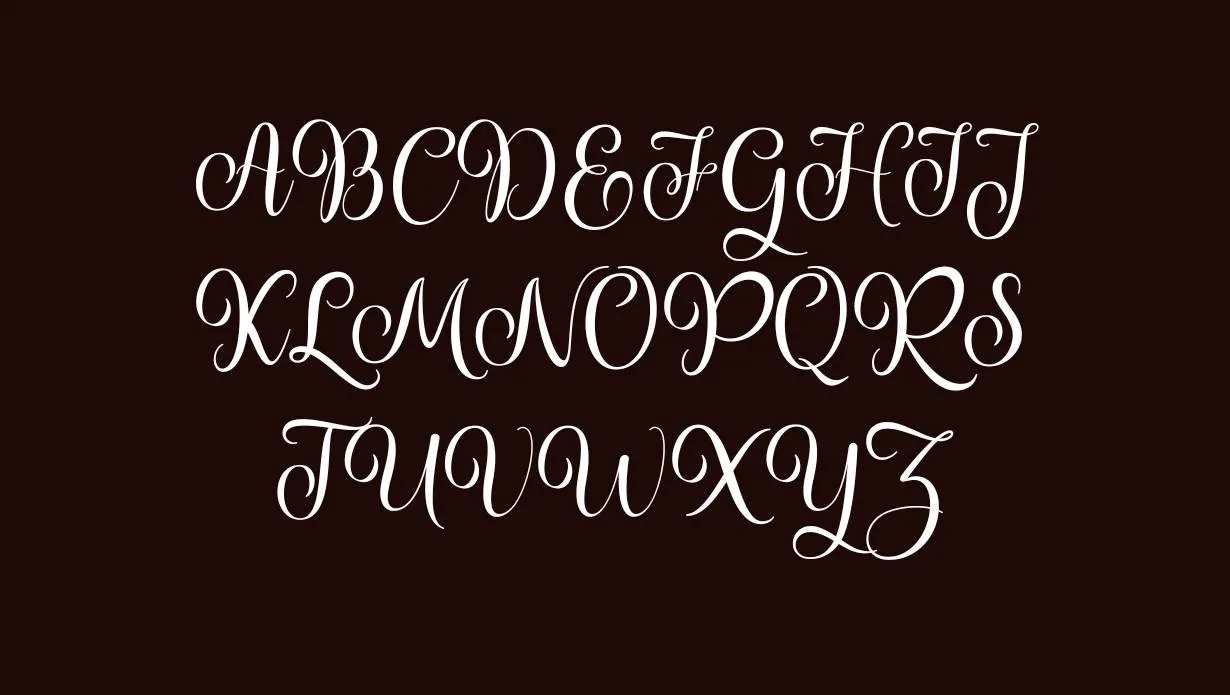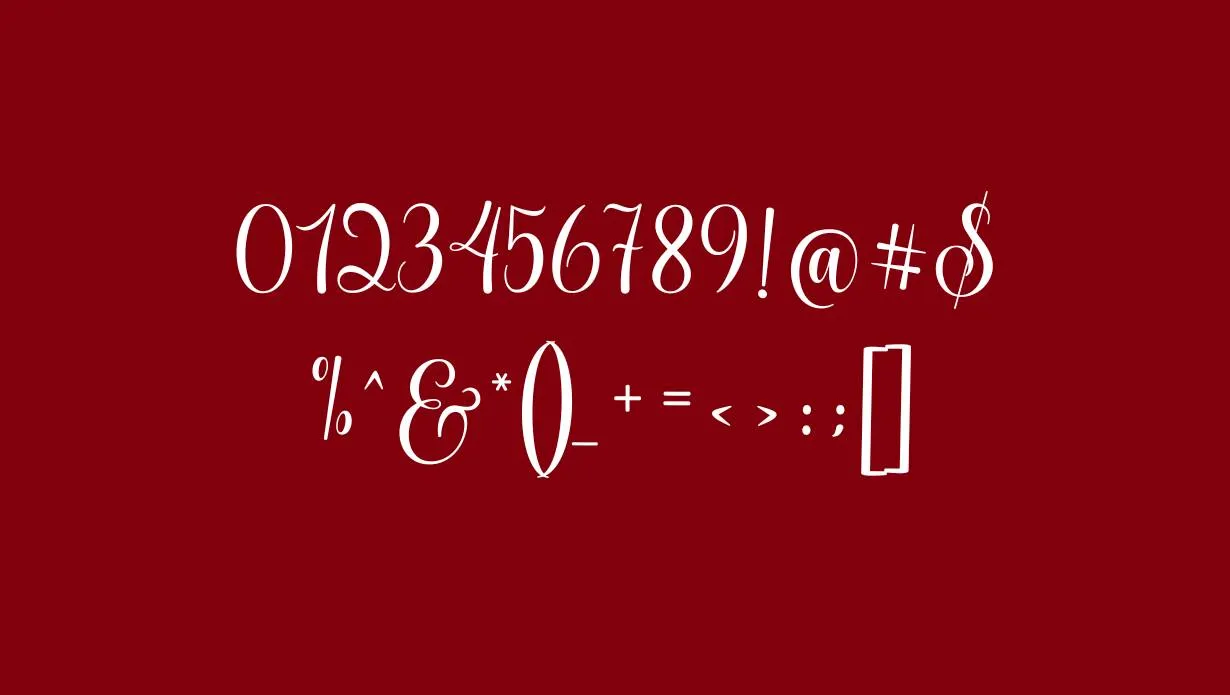
Pretty Heart Font is a unique typeface with elegant features. This stunning typeface lies under the script font family with a slight touch of the handwritten font family. You can download this typeface in different weights and styles.
You can easily combine this typeface with source sans pro font to give a unique look to your project.
Pretty Heart Font Info
| Name | Pretty Heart Font |
| Designer | Zikril lah |